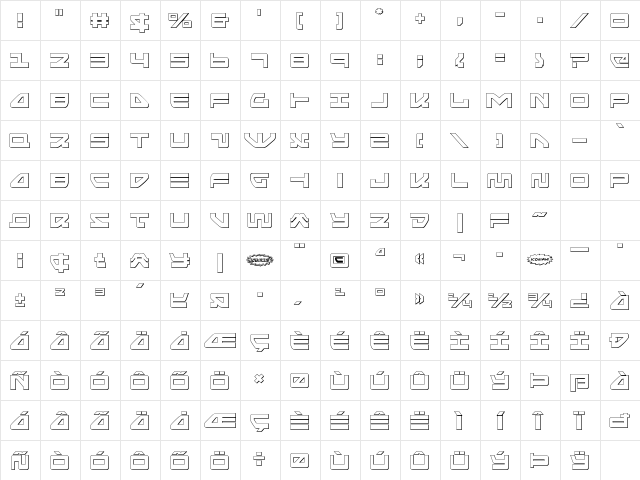
Complete Searider Falcon Outline glyph index. Displaying only characters natively supported by Searider Falcon Outline font.
Searider Falcon Outline is built around its visual character rather than neutral utility - its distinctive forms are designed to make an impression at display sizes.